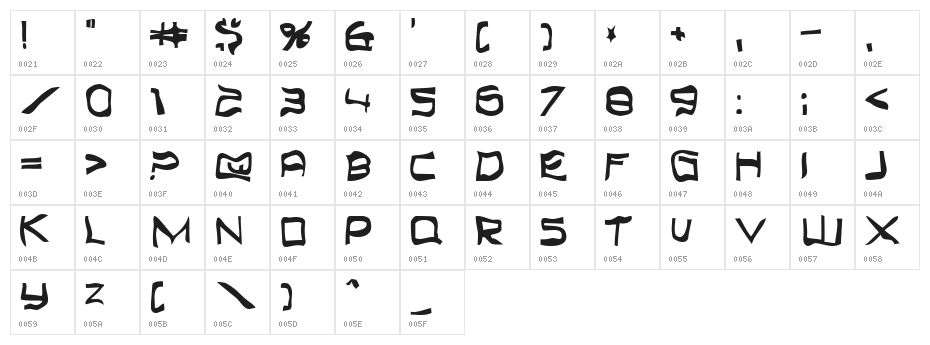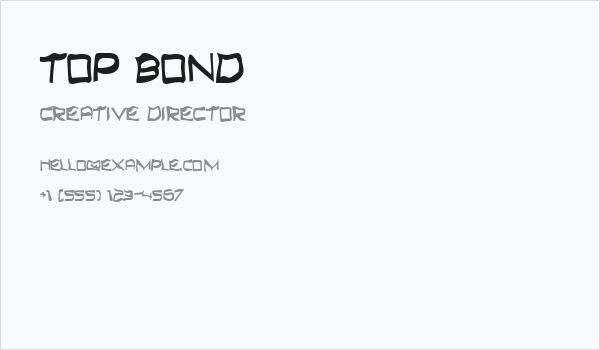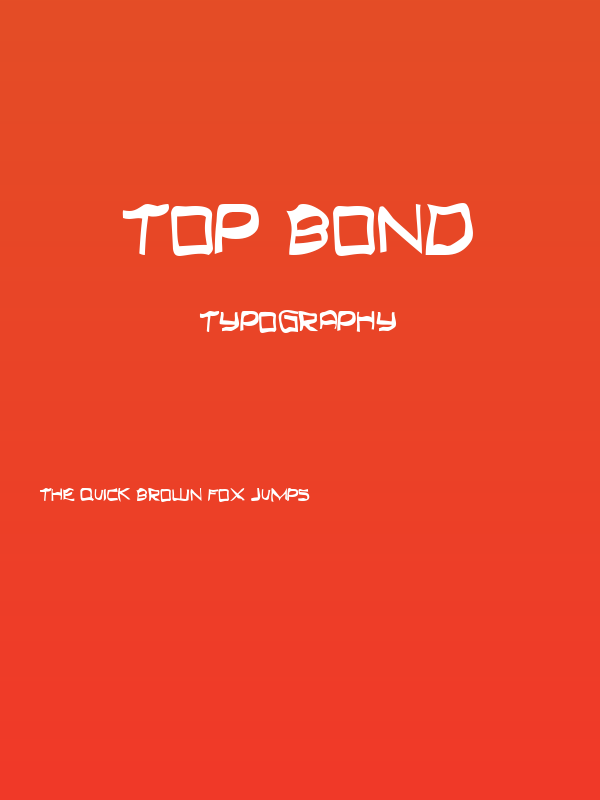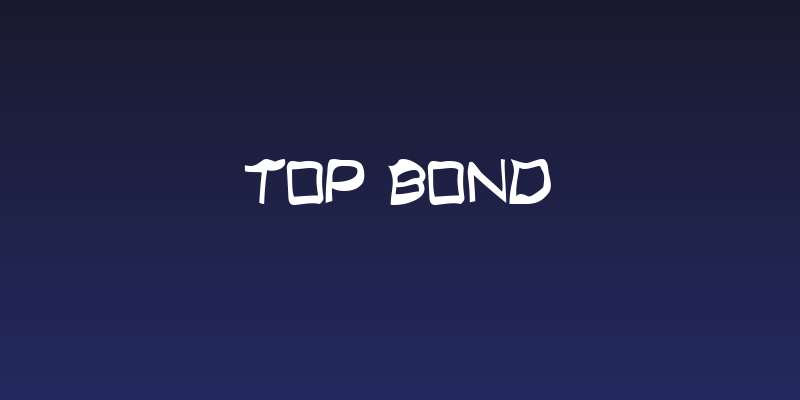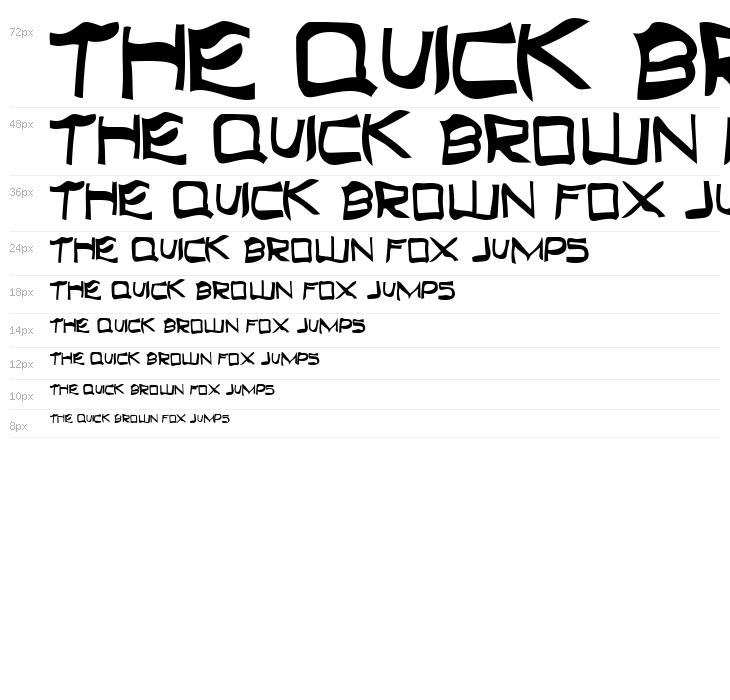
Top Bond Font
Top Bond Description
This font exhibits a bold and dynamic style with a distinctive, edgy appearance. The characters are crafted with sharp angles and irregular curves, giving it a unique and modern look. The uppercase and lowercase letters maintain a consistent design, while the numerals and special characters complement the overall aesthetic. The font's boldness and artistic flair make it stand out, suitable for projects that require a strong visual impact. Its unconventional shapes and forms suggest a sense of movement and energy, making it ideal for creative and expressive designs.
| Overall Style | Modern, Artistic |
| Proposed Projects | Ideal for branding, poster design, album covers, and any project needing a bold, artistic touch. |